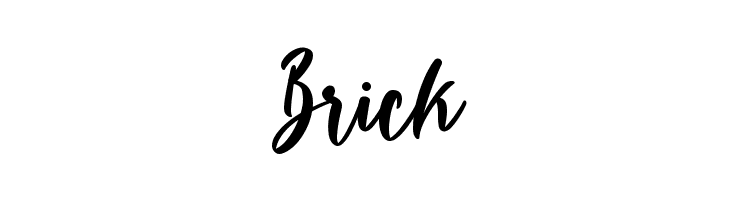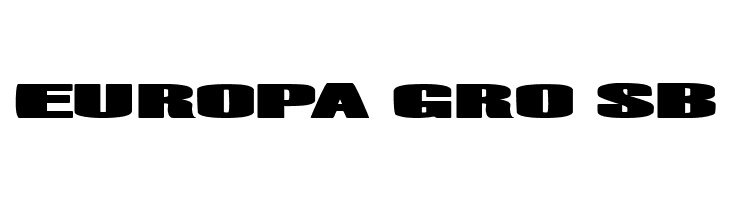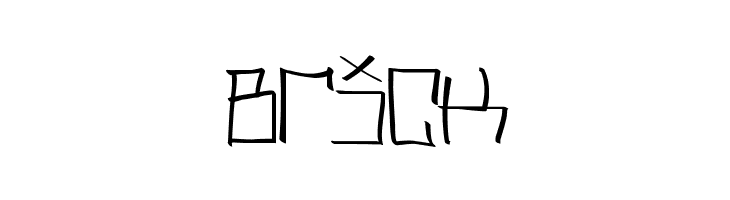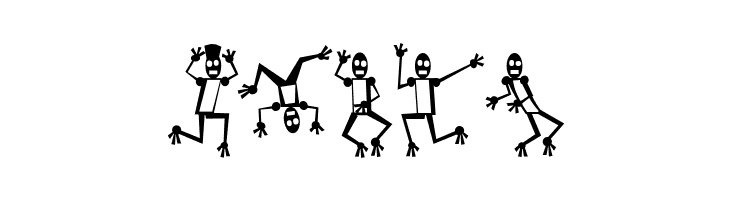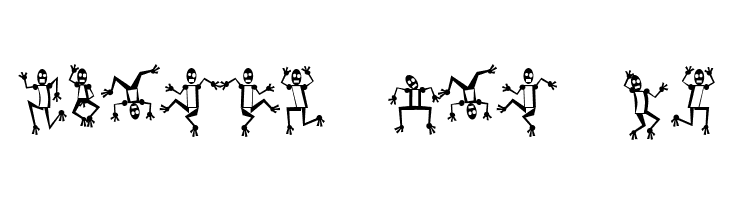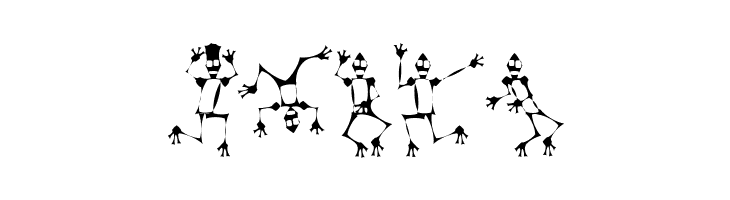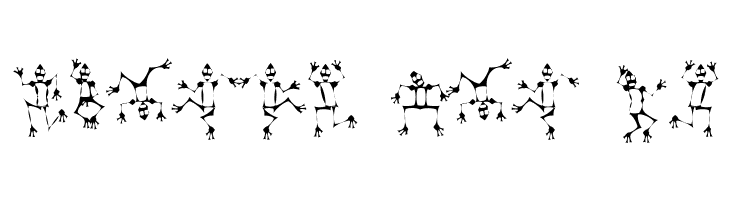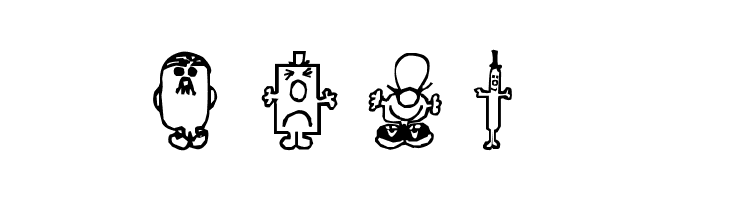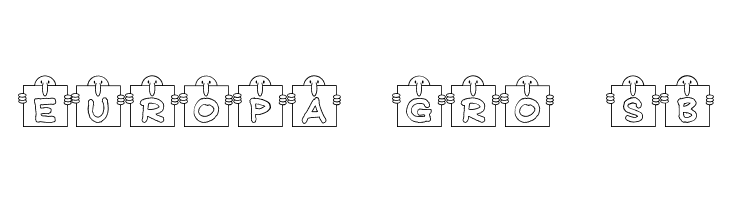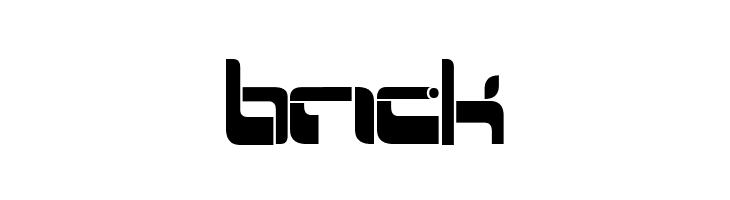
A bold, geometric font with a futuristic and digital aesthetic.
A lively and energetic script font with fluid, connected letterforms and a handcrafted appearance.
A playful, robot-themed decorative font with dynamic and whimsical character designs.
A whimsical font featuring dancing skeleton characters, perfect for decorative and playful designs.
A bold, graffiti-inspired font with angular, dynamic lines and a hand-drawn look.
A pixelated, blocky font with a retro digital aesthetic.
A playful, handwritten font with bold, rounded strokes and a casual, energetic feel.